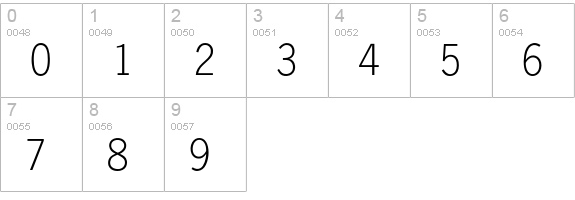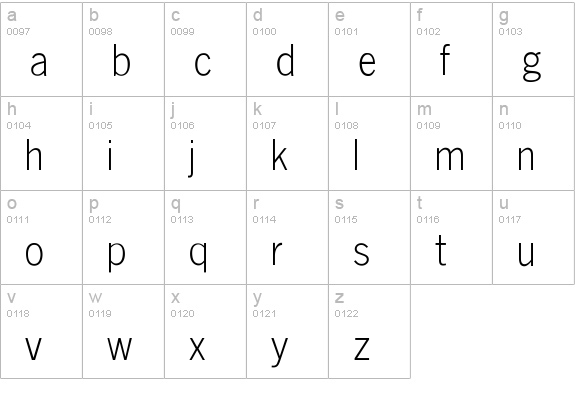
Parzifal Font Details
Parzifal is a stunning font that embodies elegance and sophistication. With its sleek and modern design, it is the perfect choice for a wide range of creative projects. Whether you're designing a logo, crafting a professional presentation, or creating eye-catching advertisements, Parzifal will add a touch of class and professionalism to your work. What sets Parzifal apart is not only its exquisite design but also the fact that it is available for free. That's right, Parzifal can be freely downloaded from FontsMarket.com, allowing you to bring your creative vision to life without breaking the bank. This versatile font features clean lines, balanced proportions, and a unique combination of thick and thin strokes, creating a harmonious and visually engaging appearance. Its legibility is exceptional, ensuring that your message is conveyed effortlessly and effectively. Parzifal's wide range of weights and styles offers endless possibilities for customization. Whether you prefer a bold and impactful look or a more subtle and delicate touch, Parzifal has the perfect variation to suit your needs. In addition to its aesthetic appeal, Parzifal is also highly functional. Its extensive character set includes support for multiple languages, ensuring that your text can be seamlessly displayed in various contexts and settings. Whether you're a professional designer or an amateur enthusiast, Parzifal is a must-have font in your collection. Its versatility, elegance, and the fact that it is freely available for download at FontsMarket.com make it an invaluable resource for all your design projects. So why wait? Download Parzifal today and let your creativity soar to new heights.